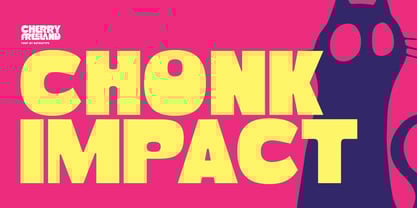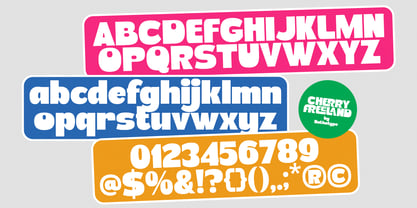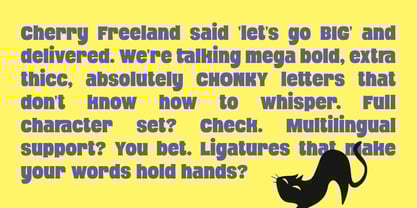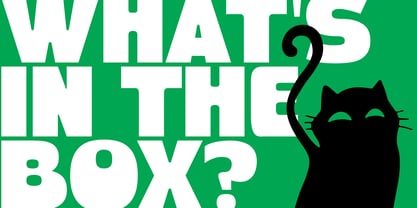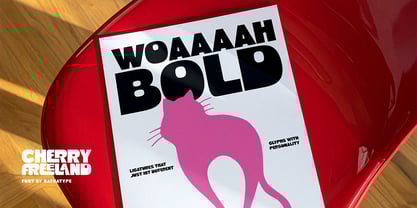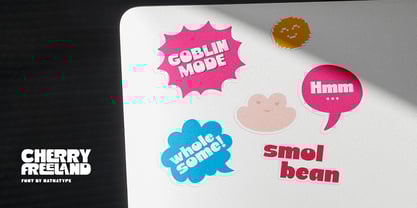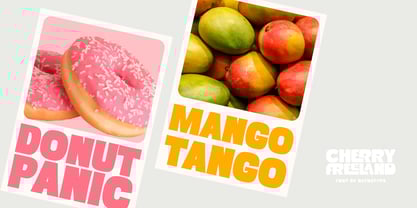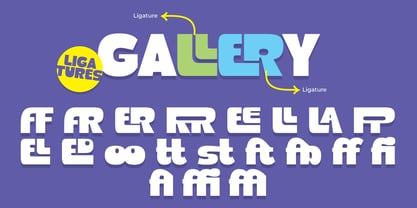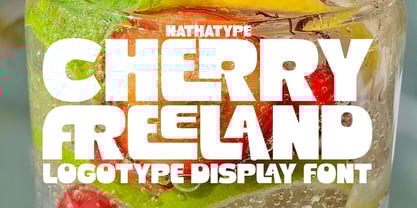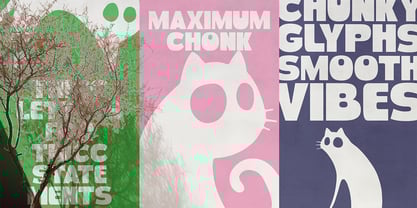
Cherry Freeland
by Nathatype
The Cherry Freeland Font Family was designed by Donis Miftahudin and published by Nathatype. Cherry Freeland contains 1 styles. More about this family
Cherry Freeland is a bold and eye-catching logotype display font. Designed to stand out effortlessly, this font blends playful personality with bold confidence, making it perfect for brands that want to communicate warmth, approachability, and modern charm. The heavy weight gives Cherry Freeland a striking presence, while its rounded edges soften the look, creating a balanced combination of strength and friendliness. In addition, enjoy the features here. Features: Alternates Ligatures Multilingual Supports PUA Encoded Numerals and Punctuations Cherry Freeland fits in logos, quotes, branding, posters, and many more designs. Find out more ways to use this font by taking a look at the font preview. Thanks for purchasing our fonts. Hopefully, you have a great time using our font. Feel free to contact us anytime for further information or when you have trouble with the font. Thanks a lot and happy designing.
Designers: Donis Miftahudin
Foundry: Nathatype
Cherry Freeland